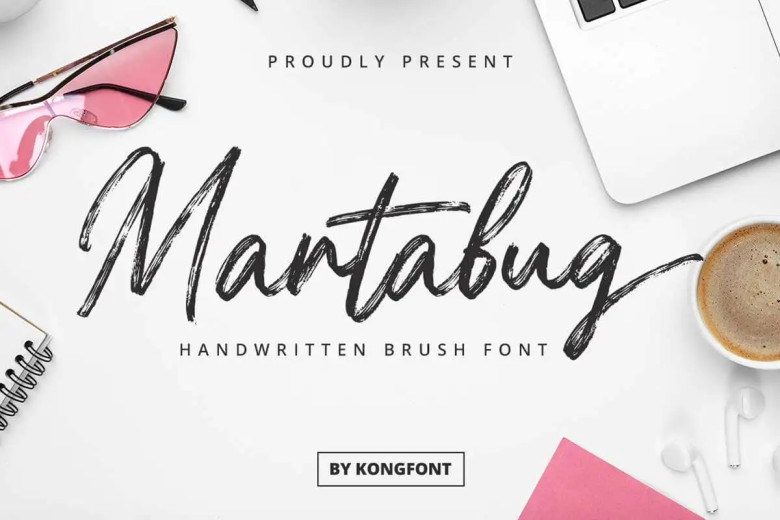
Martabug Font
Martabug is a brush font handwriting that gives the vitality of your projects a more powerful and dynamic touch. Suitable for designers, illustrators, and all other creative souls that seek the warmth and individuality that comes with brush lettering and marry it to the modern touch.
Martabug Brush Script Font